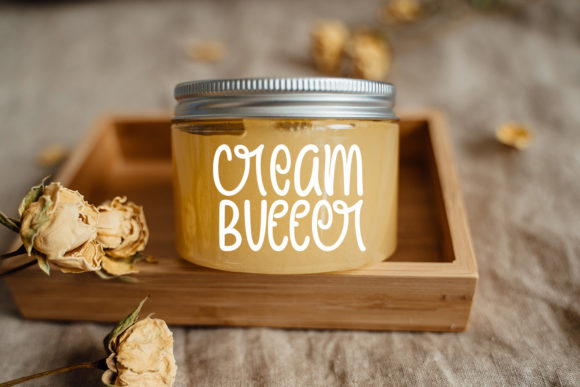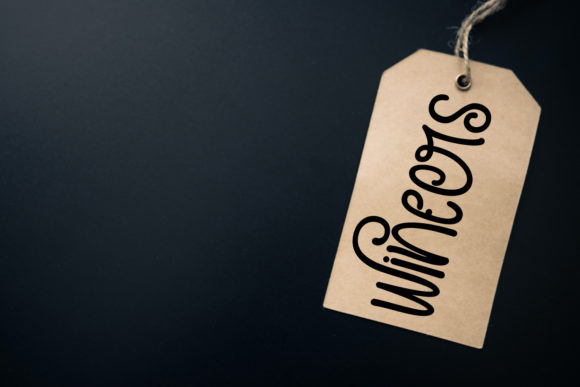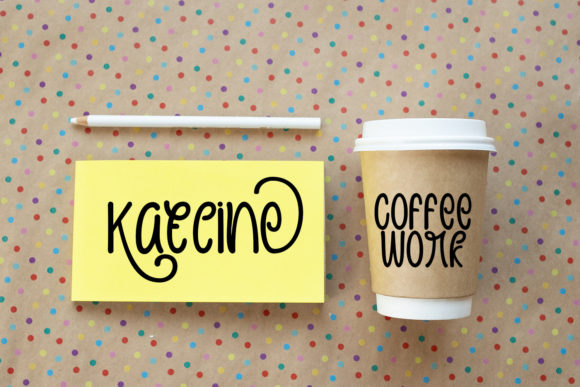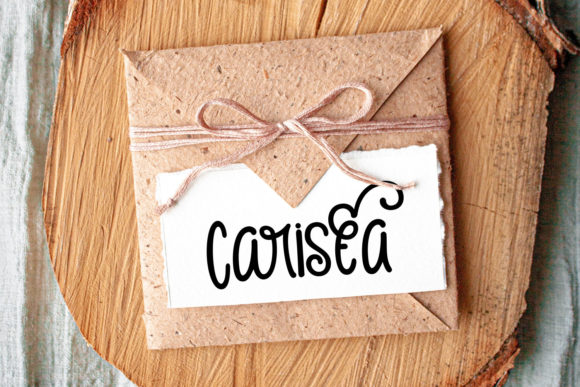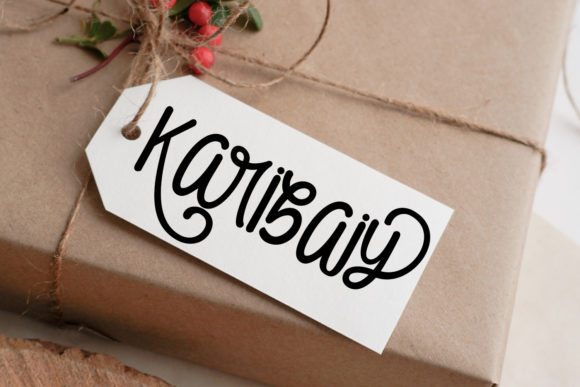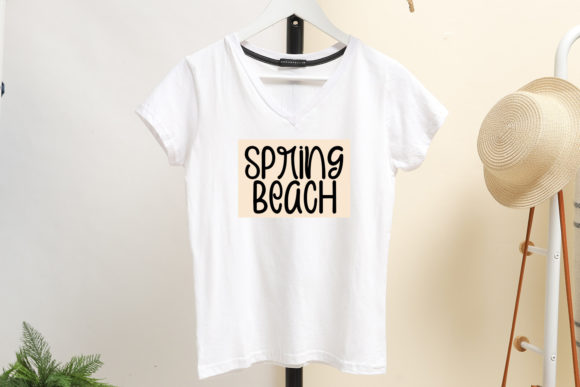
Introducing Hair Crafter Spring: The Ultimate Swirly Handwritten Font
Are you a designer or crafter looking for a unique and stylish font to elevate your creations? Look no further than Hair Crafter Spring, a trendy and adorable handwritten font that’s sure to capture your audience’s attention. In this article, we’ll dive into the features and benefits of Hair Crafter Spring, and explore how it can take your designs to the next level.
The Charm of Hair Crafter Spring
Hair Crafter Spring is a swirly and cute handwritten font that’s perfect for a variety of design projects. Its unique and playful style is sure to add a touch of personality to any creation, from branding and packaging to social media graphics and crafts. The font’s trendy and stylish aesthetic makes it ideal for designers and crafters who want to create modern and eye-catching designs that stand out from the crowd.
One of the standout features of Hair Crafter Spring is its PUA (Private Use Area) encoding. This means that you can access all of the font’s glyphs and swashes with ease, giving you maximum flexibility and creative control. With PUA encoding, you can easily insert special characters, ligatures, and swashes into your designs, allowing you to add an extra layer of detail and personality to your work.
Hair Crafter Spring is a versatile font that’s perfect for a wide range of design applications. Whether you’re a professional designer or a crafter looking to add a personal touch to your projects, this font is sure to meet your needs. Here are just a few examples of how you can use Hair Crafter Spring:
- Branding and Packaging: Use Hair Crafter Spring to create eye-catching logos, labels, and packaging that reflects your brand’s personality.
- Social Media Graphics: Add a touch of whimsy and personality to your social media graphics, including Instagram posts, Facebook graphics, and Twitter headers.
- Crafts and DIY Projects: Use Hair Crafter Spring to add a personal touch to your crafts and DIY projects, including handmade cards, gift tags, and scrapbooking pages.
Tips for Using Hair Crafter Spring
To get the most out of Hair Crafter Spring, here are a few tips to keep in mind:
- Experiment with different sizes and colors: Hair Crafter Spring looks great in a variety of sizes and colors, so don’t be afraid to experiment and find the perfect combination for your design.
- Mix and match glyphs and swashes: With PUA encoding, you can easily access a range of glyphs and swashes to add visual interest to your designs.
- Pair with other fonts: Hair Crafter Spring pairs well with a range of other fonts, so try combining it with other fonts to create a unique and eye-catching design.
In conclusion, Hair Crafter Spring is a unique and stylish handwritten font that’s perfect for designers and crafters looking to add a touch of personality to their creations. With its PUA encoding and range of glyphs and swashes, this font offers maximum flexibility and creative control. Whether you’re creating branding and packaging, social media graphics, or crafts and DIY projects, Hair Crafter Spring is sure to elevate your designs and help you stand out from the crowd.